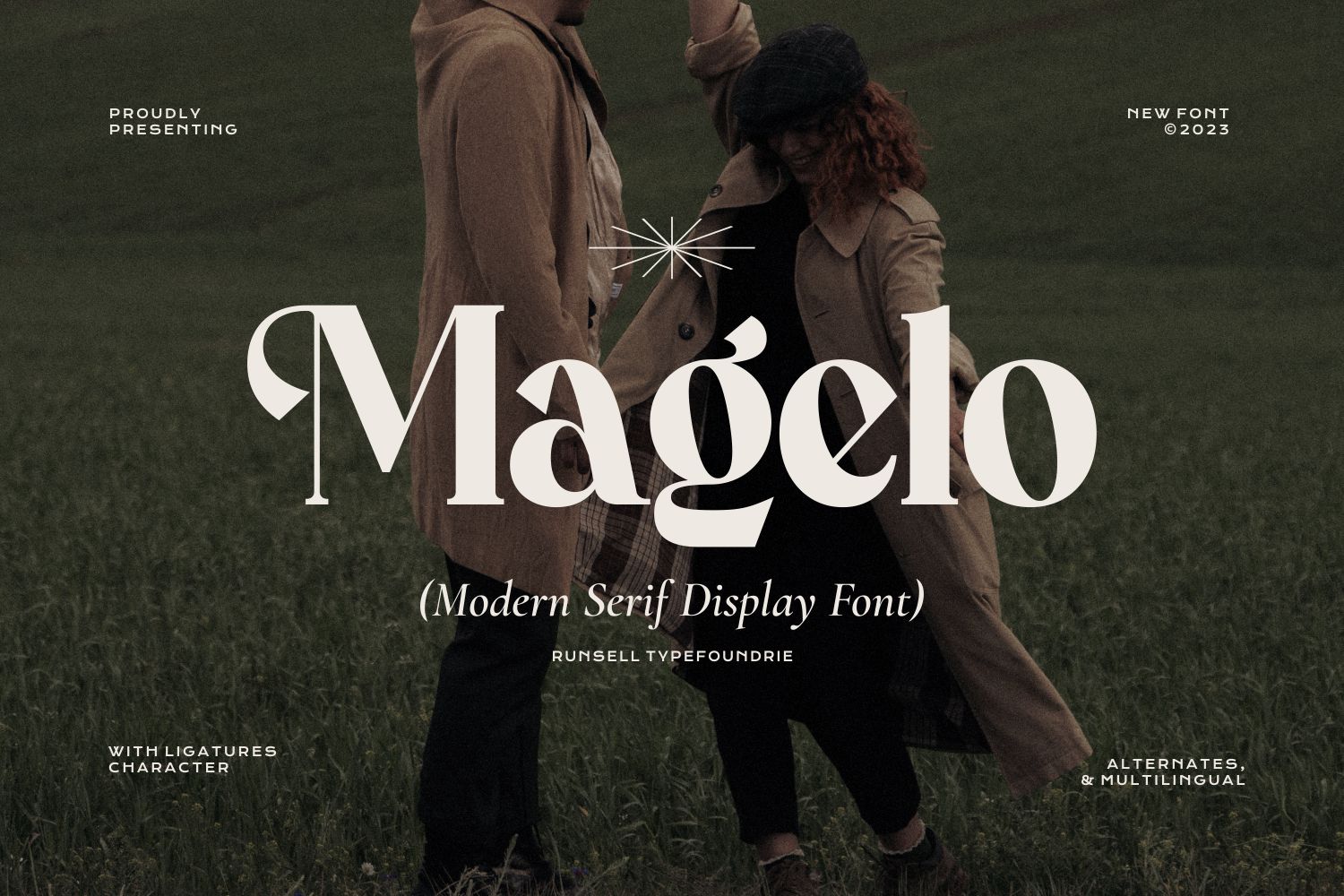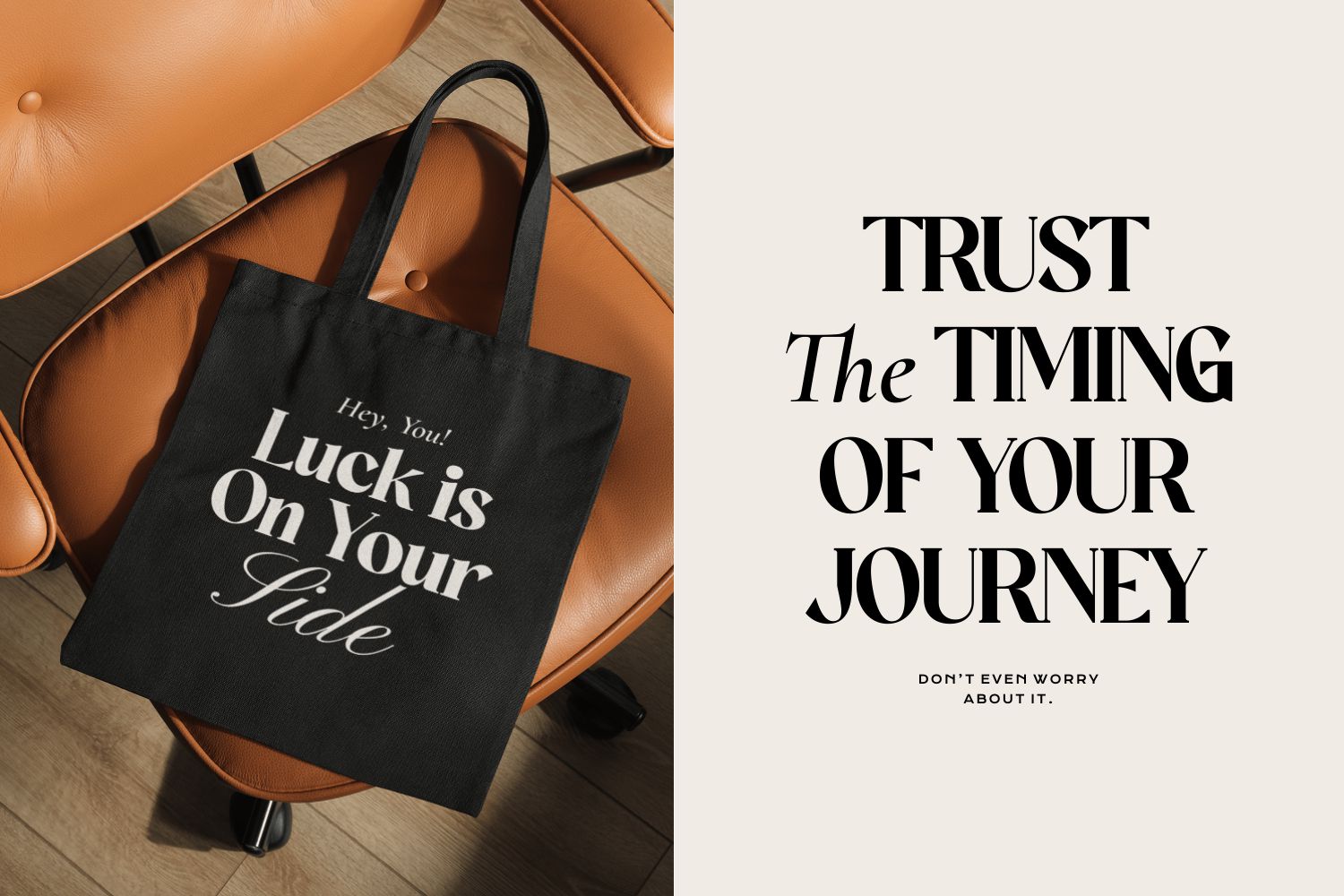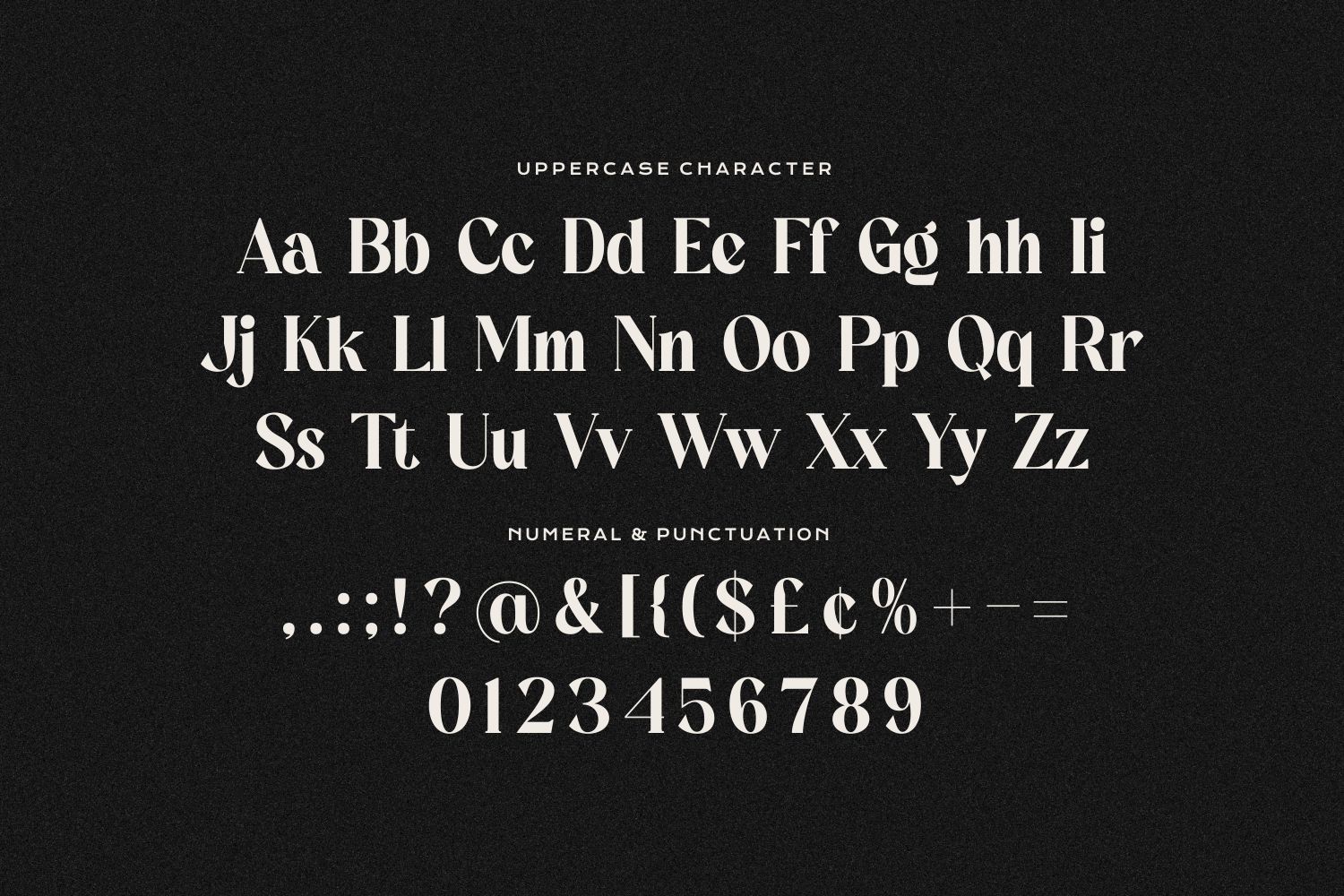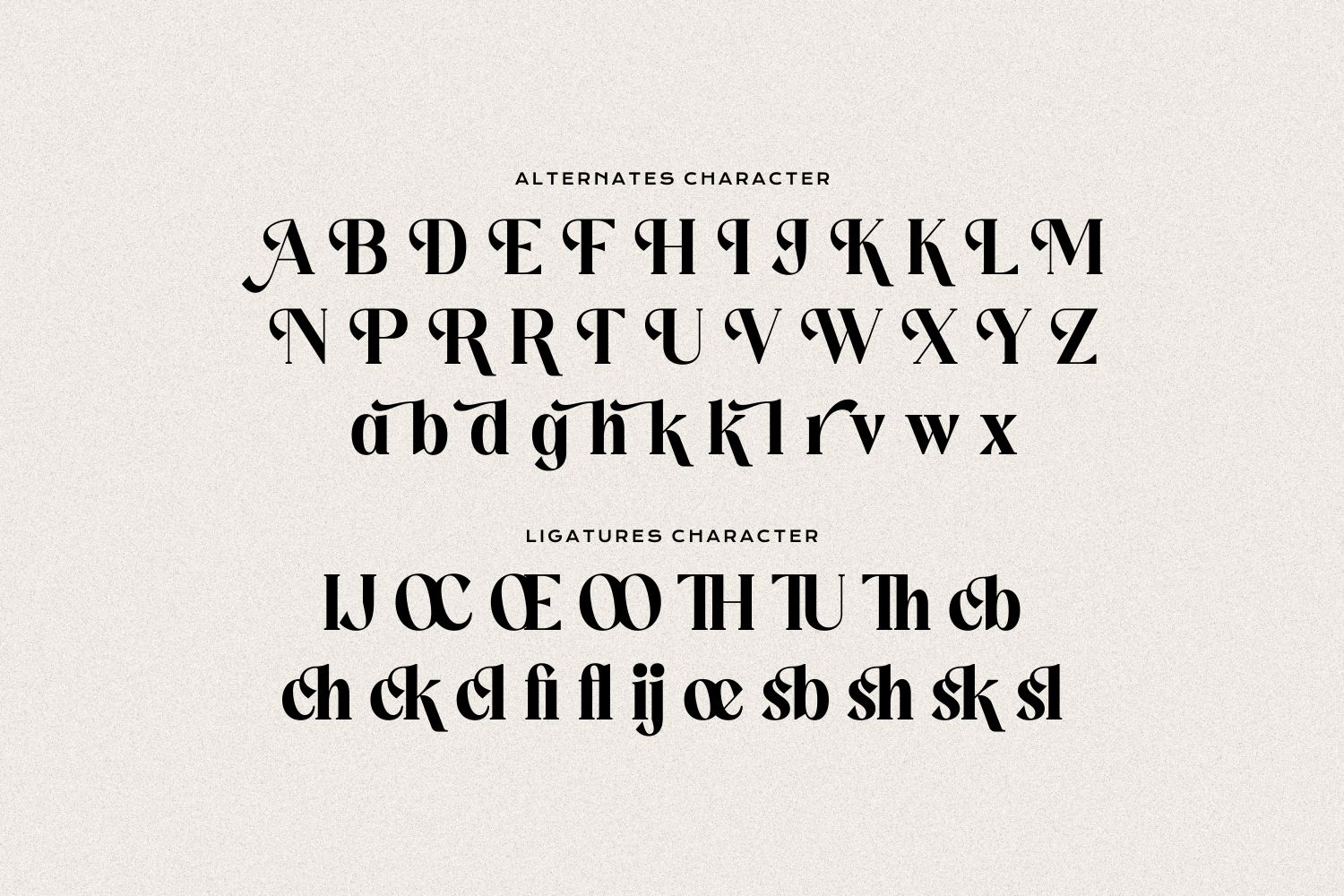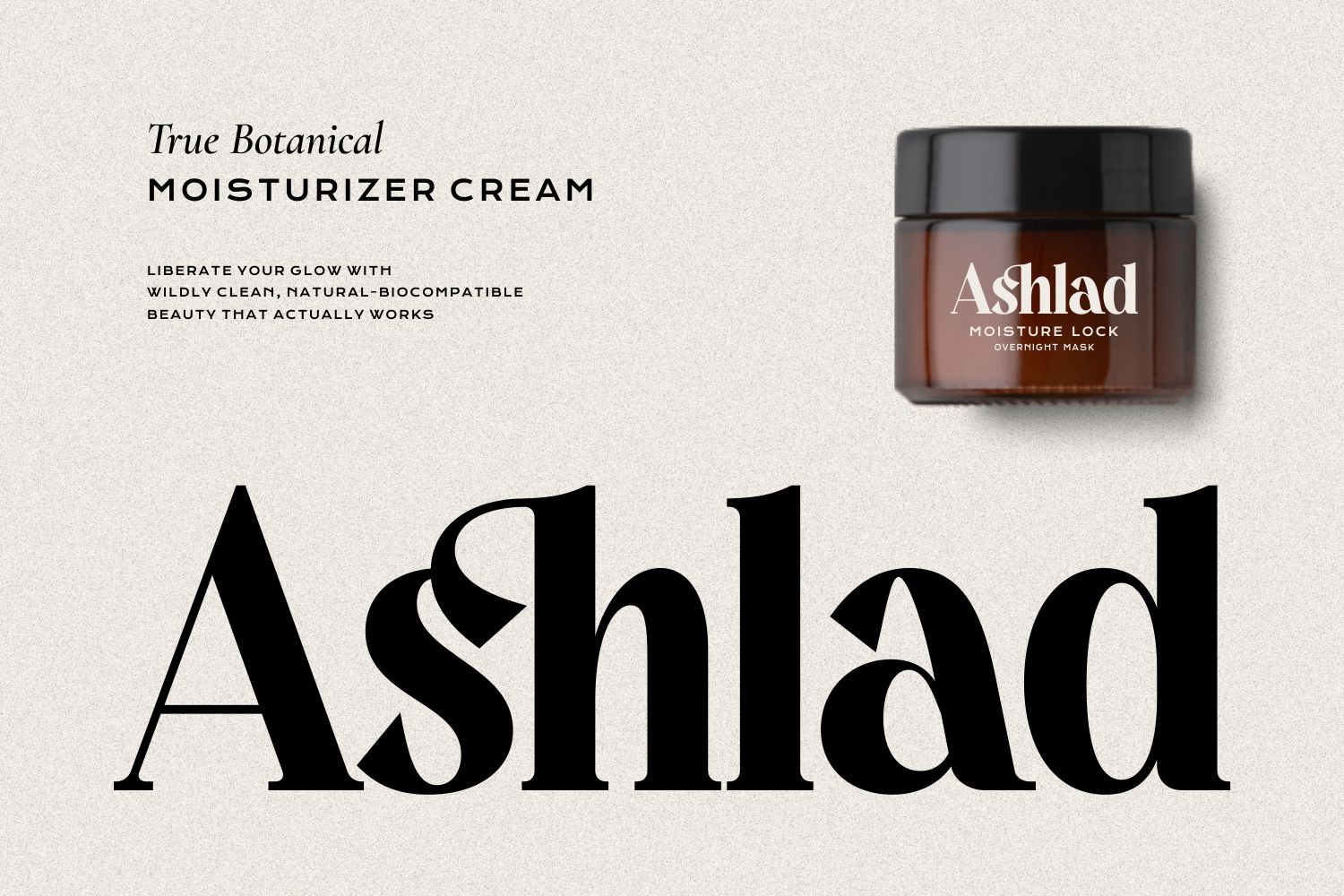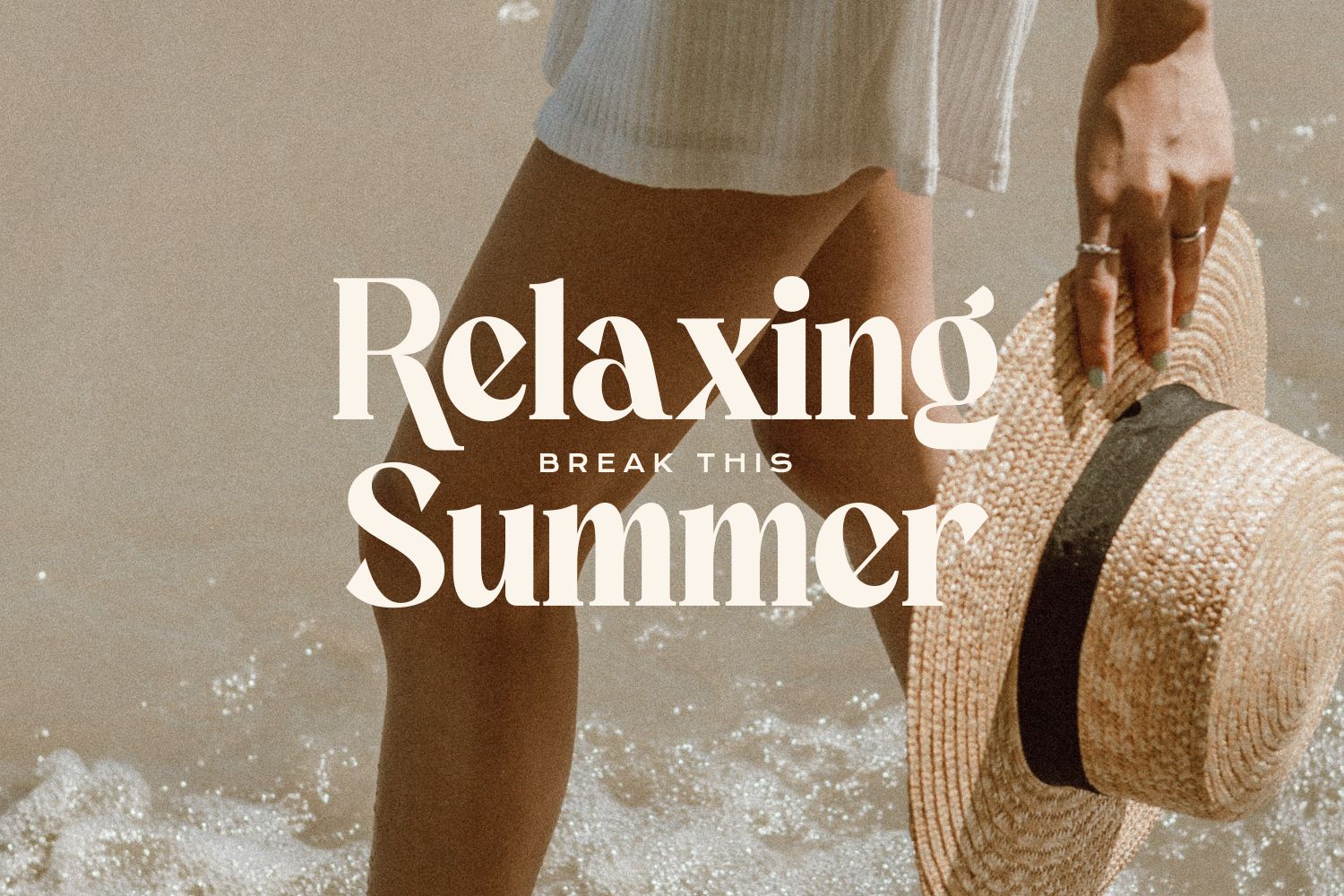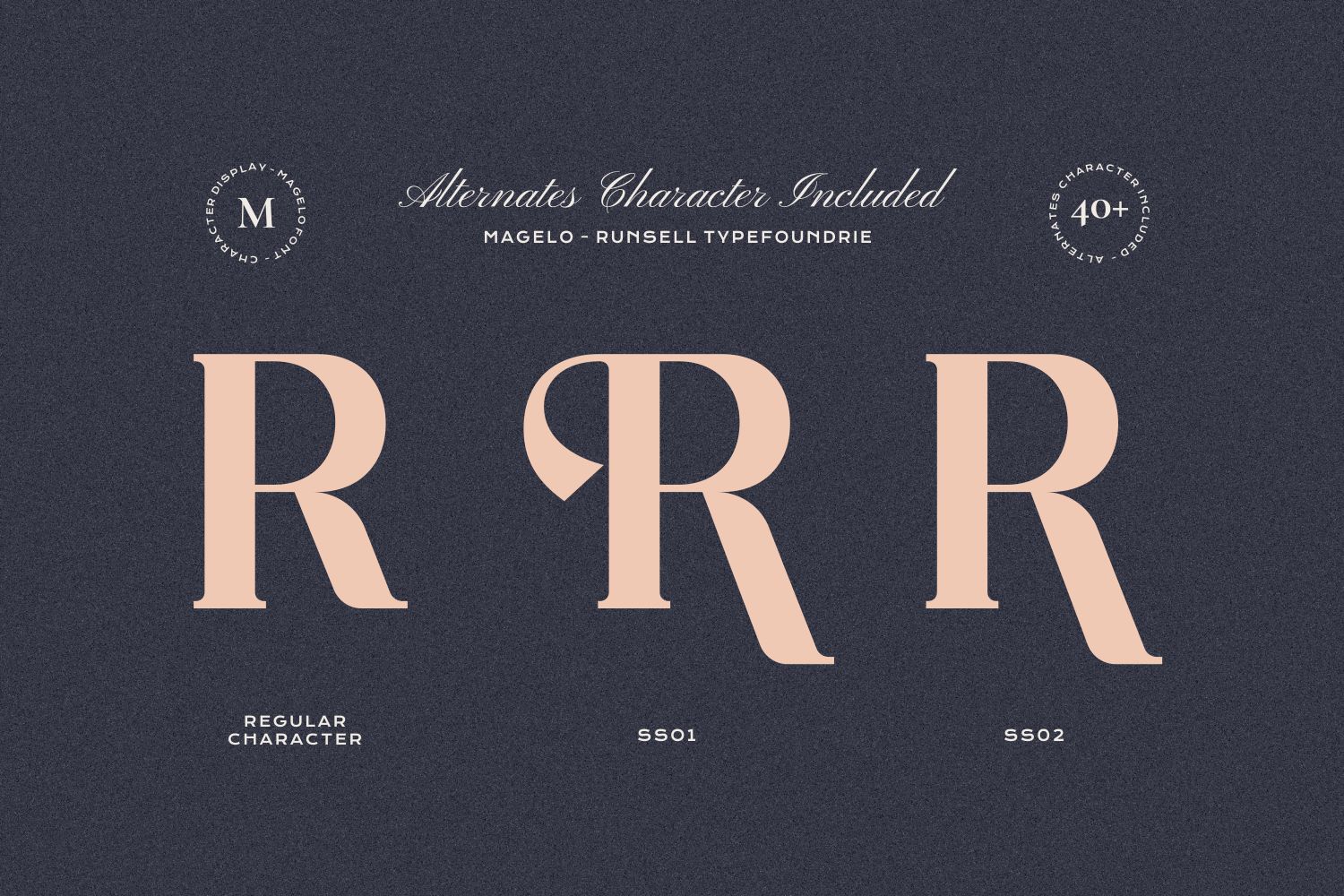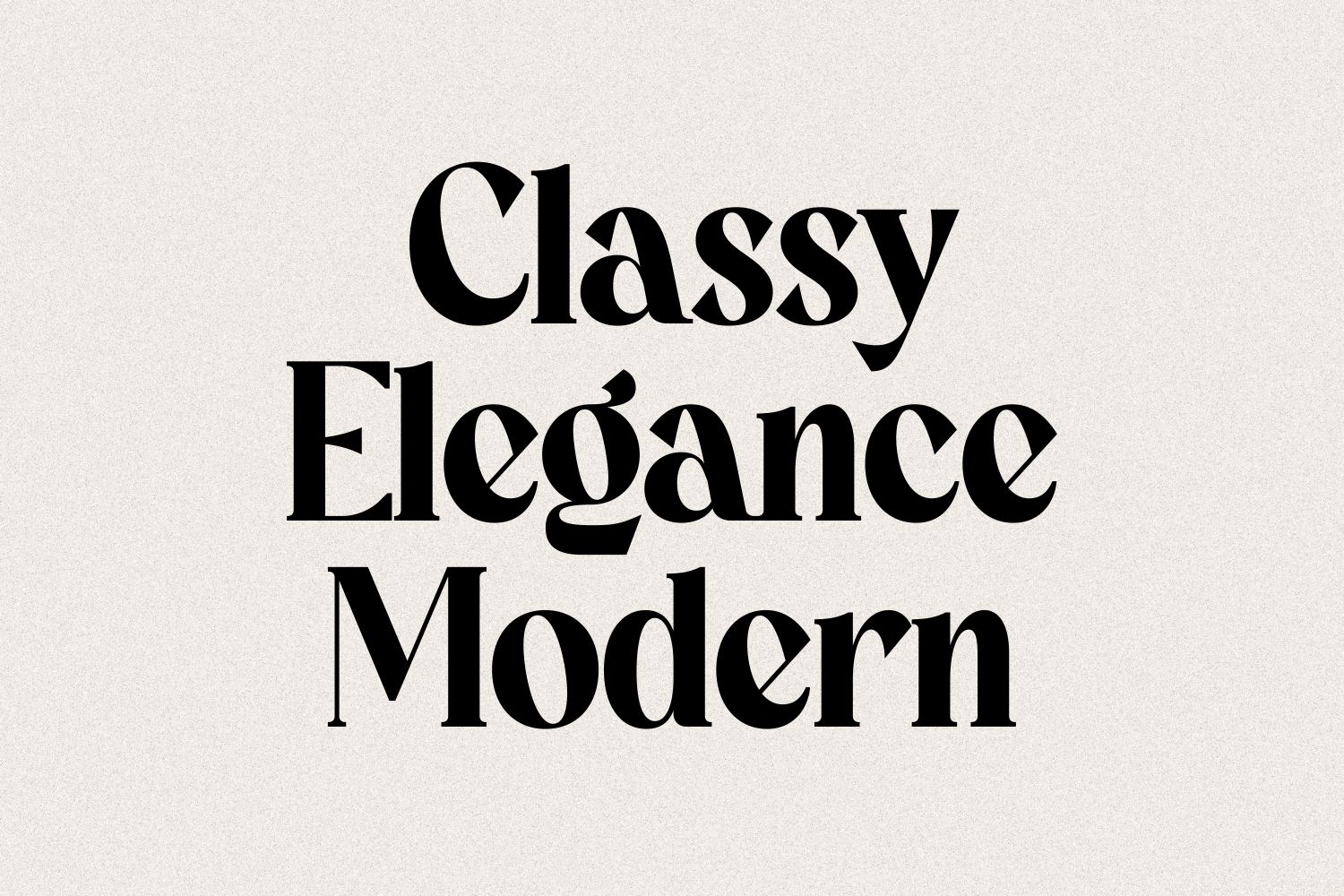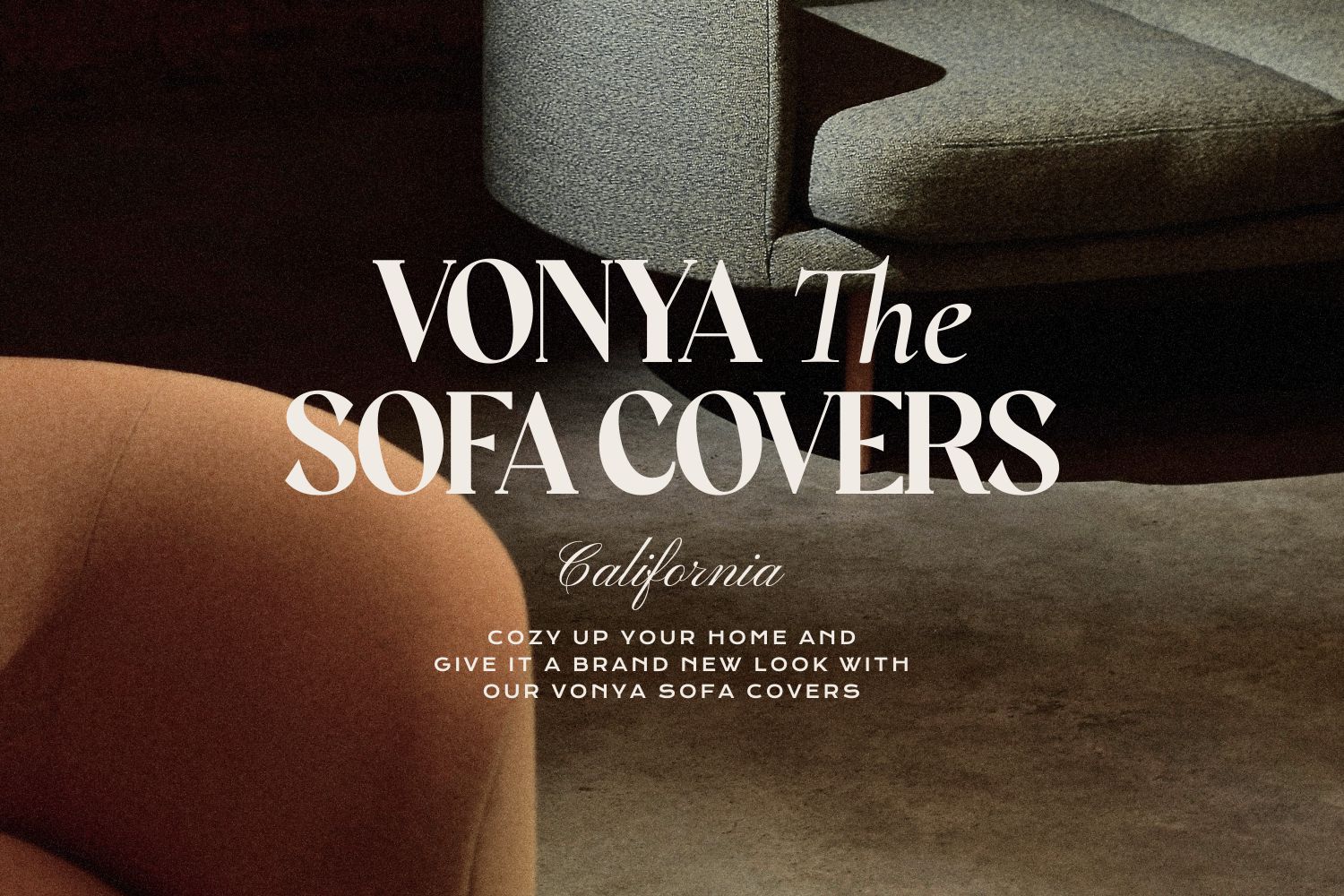
Magelo is a modern serif display font that combines timeless elegance with contemporary flair. Featuring high-contrast strokes, artistic ligatures, and unique alternate characters, Magelo delivers a luxurious and distinctive appearance suited for branding, editorial design, and high-end packaging. Its letterforms carry a refined charm with stylish curves and sharp terminals, making it both captivating and highly legible.
This font is ideal for those seeking sophistication with personality. Whether you’re designing for fashion campaigns, lifestyle products, or boutique identities, Magelo elevates your typography with a sense of class and bold expression. It also supports multilingual characters, offering flexibility for international branding needs.
Magelo